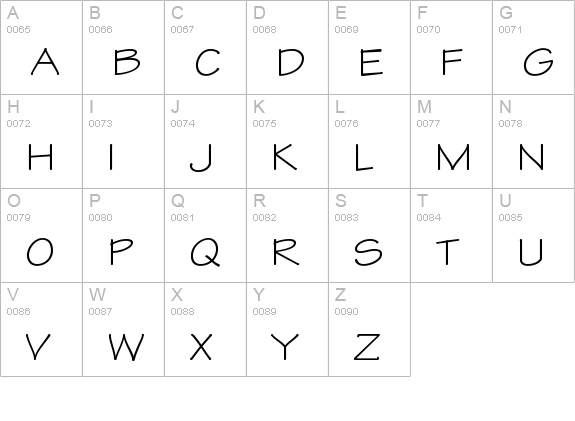
Tekton Pro Extended is a distinctive, extended-width variant in the Tekton typeface family \xE2\x80\x94 well suited to design and typography projects.
Tekton Pro Extended is a versatile and dynamic font that takes inspiration from the bold and solid lettering of technical drawings. With its extended width and striking presence, this font is perfect for creating eye-catching headlines, titles, and logos. The clean lines and balanced proportions of Tekton Pro Extended lend it a modern and professional feel, making it suitable for a wide range of design projects. One of the most impressive features of Tekton Pro Extended is that it is available for free download at FontsMarket.com. This means that designers and creatives can easily access and utilize this powerful font without any cost. Whether you are a professional designer, a student, or someone looking to add a touch of sophistication to their personal projects, Tekton Pro Extended offers a high-quality solution that won't break the bank. With its extensive character set, including uppercase and lowercase letters, numbers, punctuation marks, and special symbols, Tekton Pro Extended provides endless possibilities for typography. Whether you are aiming for a bold and impactful design or a more subdued and elegant look, this font has the versatility to meet your needs. The readability and legibility of Tekton Pro Extended also make it an excellent choice for longer texts, such as brochures, magazines, or websites. Its smooth curves and carefully crafted letterforms ensure that each character is distinct and easy to read, even at smaller sizes. Overall, Tekton Pro Extended is a powerful and visually striking font that offers a range of creative possibilities. And with its free availability to download at FontsMarket.com, there is no reason not to explore and incorporate this font into your next design project.